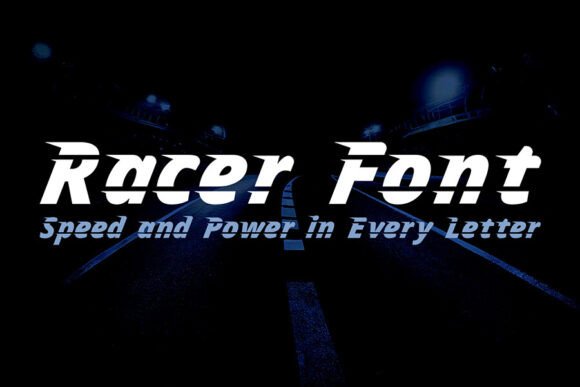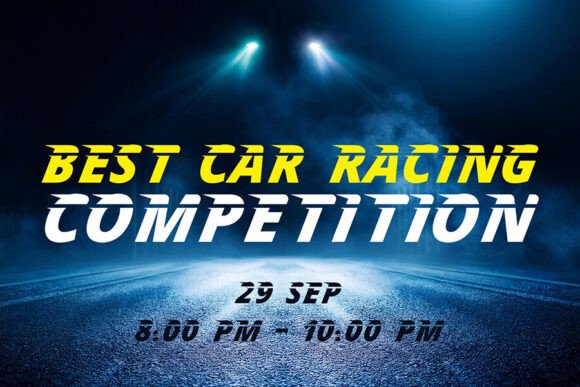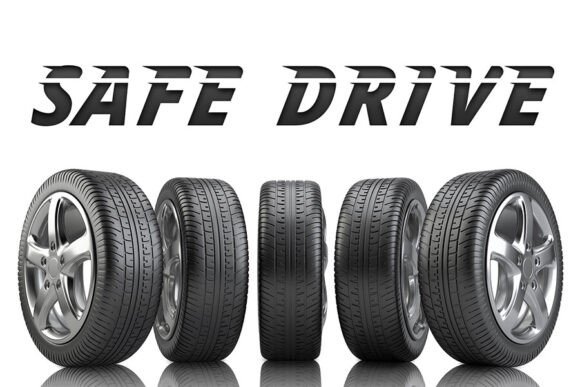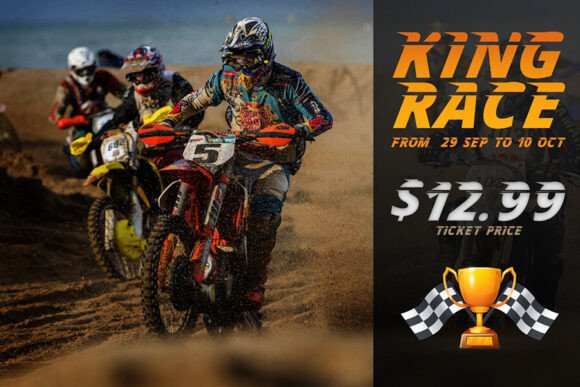
Racer Font
About the Racer Font
The wait is over! The incredible Racer Font is now available for your design toolkit. Racer Font is a bold, chunky lettered, and uniquely designed display font. Add it to your most creative ideas and notice how it makes them come alive!
Race Font is a dynamic, high-speed typeface inspired by the thrill of motorsports. Perfect for bold designs, racing posters, and automotive branding, this font captures the energy and excitement of the track. Ideal for creating logos, event flyers, and sporty graphics, Race Font delivers a powerful and modern look for any racing-themed project. Download Race Font now to elevate your design with style and speed.
Racer Font Usage Examples
Racer Font Example